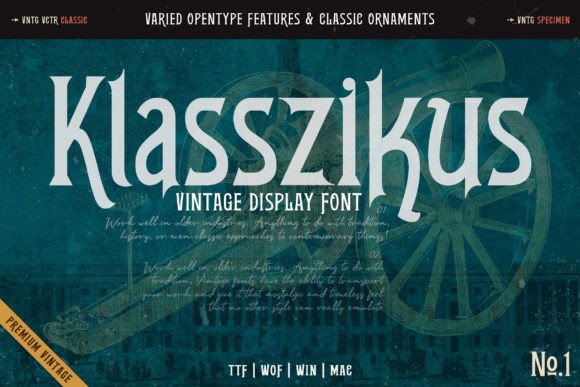
Unveil the Timeless Charm of Klasszikus: A Vintage Display Font that Embraces Tradition and History
Journey back in time with Klasszikus, an exquisite vintage display font that emanates an air of elegance and sophistication. Immerse yourself in the charm of bygone eras as you witness the beauty of Klasszikus unfold before your eyes. This stunning font, crafted with meticulous attention to detail, evokes a sense of nostalgia and authenticity that will captivate your audience.
Born from the creative vision of roompoetliar, Klasszikus embodies the essence of classicism, seamlessly blending the allure of the past with the vibrancy of the present. Its intricate flourishes and delicate curves evoke a sense of timeless elegance, reminiscent of an era where artistry and craftsmanship reigned supreme.
With its vintage flair, Klasszikus exudes an unmistakable charm that is perfectly suited for a wide range of projects. Whether you're working on promotions, logo designs, social media posts, or greeting cards, Klasszikus will elevate your creations with a touch of timeless beauty.
Embrace the Legacy of Klasszikus:
- Embark on a Journey Through Time: Let Klasszikus transport you to a bygone era, where tradition and history intertwine to create a captivating narrative.
- Witness the Beauty of Vintage Charm: Immerse yourself in the allure of Klasszikus, where intricate details and delicate flourishes dance together in perfect harmony.
- Express Your Timeless Elegance: Infuse your projects with a sense of timeless elegance, allowing Klasszikus to elevate your designs with its classic aesthetic.
Unlock Endless Creative Possibilities:
- Design Promotions with a Vintage Twist: Create promotional materials that exude a sense of nostalgia and authenticity, capturing the attention of your audience with Klasszikus' captivating charm.
- Craft Logos that Speak Volumes: Design logos that embody the essence of your brand, utilizing Klasszikus' unique vintage style to create a lasting impression.
- Captivate Your Social Media Audience: Engage your followers with eye-catching social media posts, using Klasszikus to add a touch of timeless elegance to your content.
- Create Greeting Cards that Warm Hearts: Craft heartfelt greeting cards that convey your sincere sentiments, letting Klasszikus' vintage charm add a touch of warmth and charm to your messages.